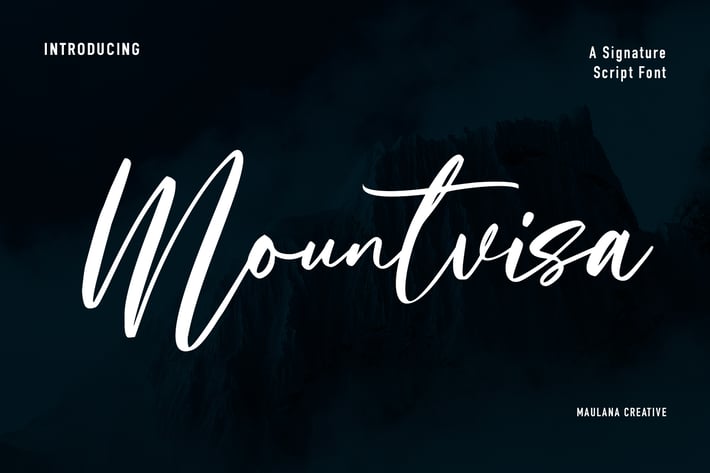
Mountvisa Script Font
Mountvisa is a Casual Script font. With high contrast stroke, slanted and fun character with some of ligatures. To give you an extra creative work. Mountvisa font support multilingual more than 100+ language. This font is good for logo design, Social media, Movie Titles, Books Titles, a short text even a long text letter and good for your secondary text font with sans or serif. Make a stunning work with Mountvisa font.